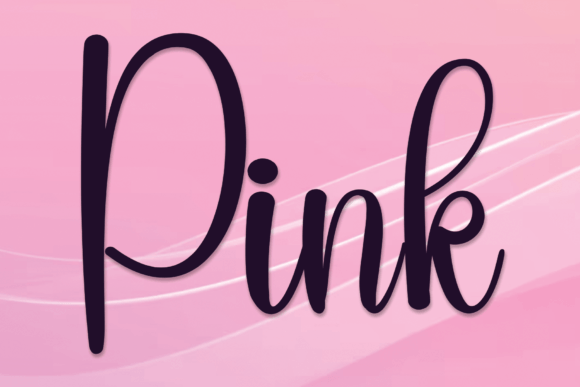
Immerse yourself in the world of Pink Font, a breathtaking script font family designed to capture the essence of elegance and charm. Each character dances across the page like a delicate ballerina, leaving a trail of visual delight. With its graceful curves and playful flourishes, Pink Font is the perfect choice for adding a touch of whimsy and sophistication to your creative projects.
Picture this: a wedding invitation adorned with Pink Font's enchanting script, inviting guests to a celebration filled with love and laughter. The letters flow together seamlessly, creating an atmosphere of romance and excitement. Or perhaps you're crafting a greeting card for a special someone, longing to express your heartfelt sentiments in a way that truly resonates. With Pink Font as your chosen companion, your words will dance and twirl across the page, conveying emotions with an eloquence that speaks straight to the heart.
But Pink Font's versatility extends far beyond the realm of weddings and heartfelt greetings. Its charming personality shines through in a multitude of applications, beckoning you to explore its creative potential. Unleash your imagination and let Pink Font guide you through the world of branding, web design, and social media graphics. Witness how effortlessly it transforms ordinary designs into captivating masterpieces, leaving a lasting impression on your audience.
Step into a world where fonts take center stage, where every letter tells a story, and every word carries a weight of emotion. Let Pink Font be your muse, guiding you toward creative brilliance. Its sweet and friendly demeanor will captivate your senses, while its versatility and charm will empower you to create designs that resonate with your audience on a profound level.
So, embrace the allure of Pink Font and embark on a creative journey like no other. Let its enchanting script ignite your imagination and transport you to a realm where beauty and expression reign supreme.